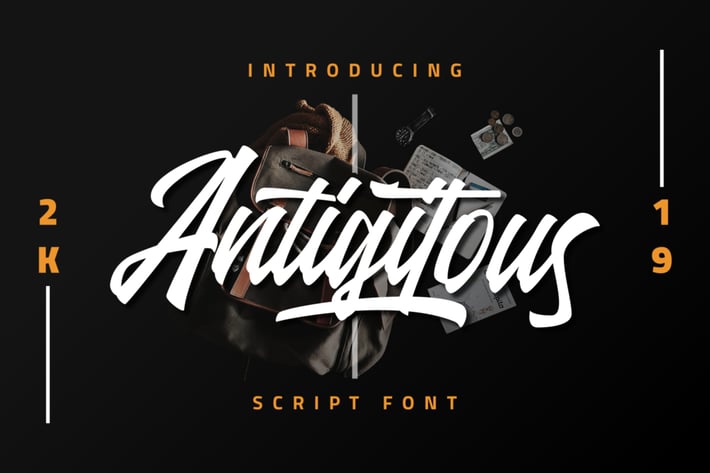
Antigitous - Script Font
Antigitous is perfect to use for Logotype, Letterhead, Poster, Apparel Design, Label and etc.
The alternative characters were divided into several features such as Stylistic Alternates and Ligature.